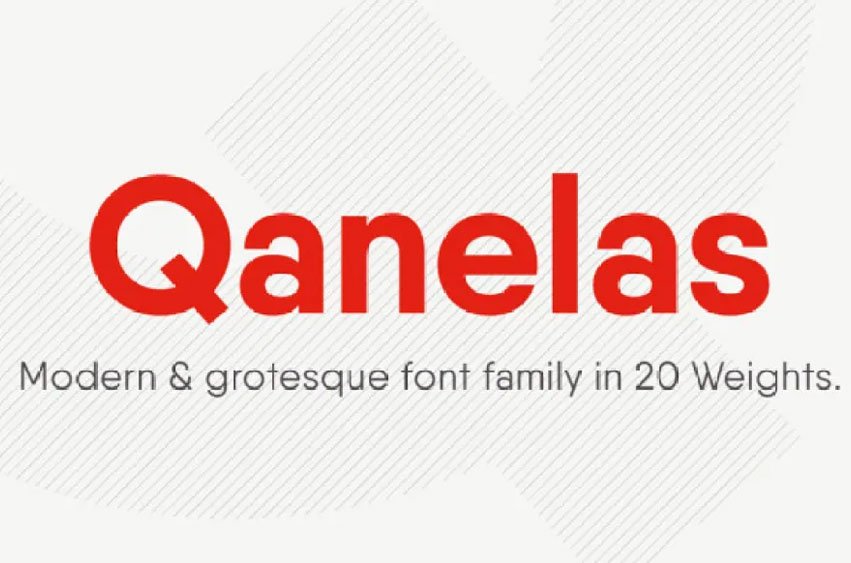
Qanelas Font
Qanelas Fonis a contemporary sans serif family with geometric touches and is available in 20 weights; 10 uprights and their matching italics make up this font family, designed using opentype.
Each weight includes different characters, fractions and extended support for languages (plus Cyrillic) along with ligatures, arrows and more – making this font family truly versatile and useful!
Perfect for graphic design and display purposes, signage is also used as part of corporate websites as well as editorial design projects.